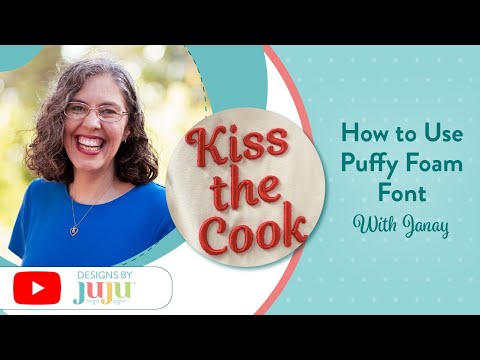
Closer to Free Puffy Embroidery Font
Bring stylish dimension to your embroidery projects with this specialized serif, puffy foam, embroidery font, designed to create stunning 3D effects! Perfect for hats, jackets, bags, and other items where you want your designs to stand out with bold, raised lettering.